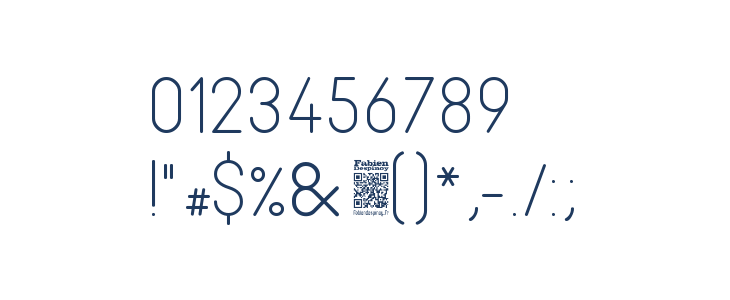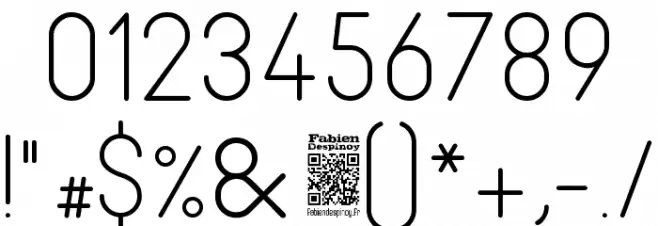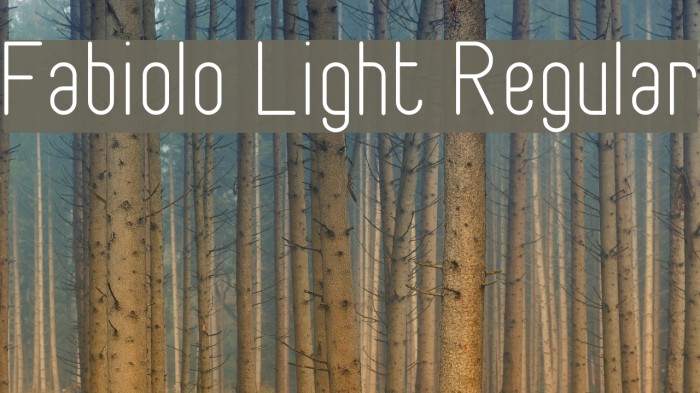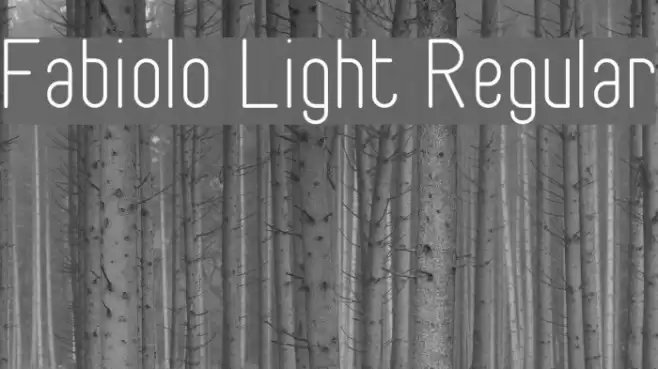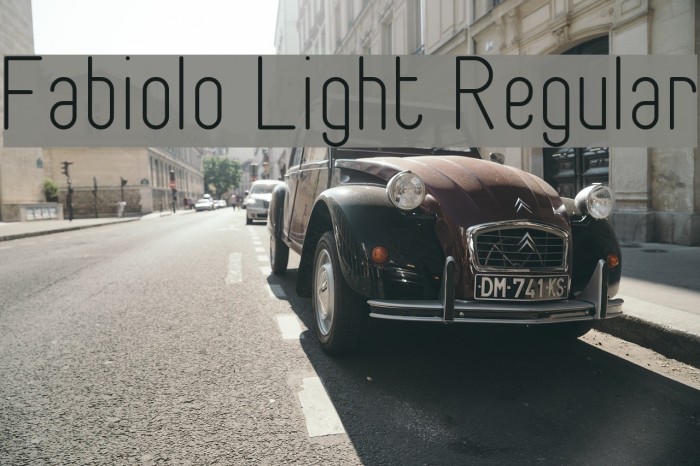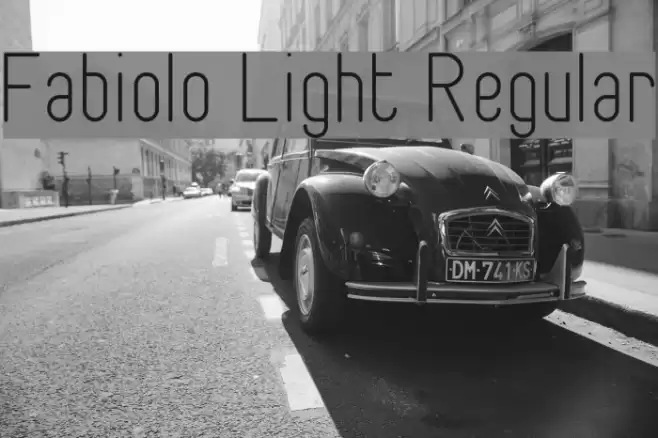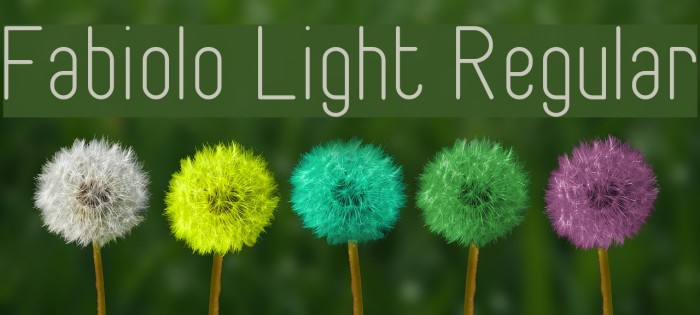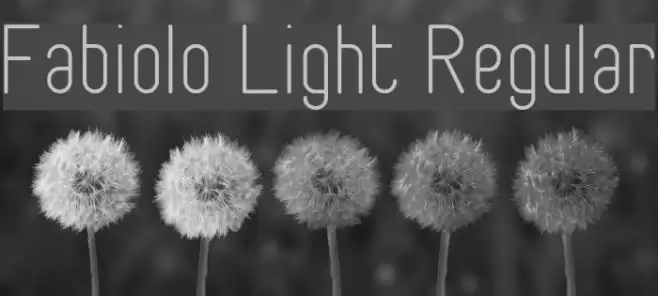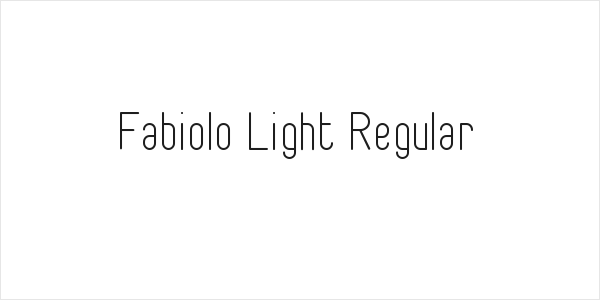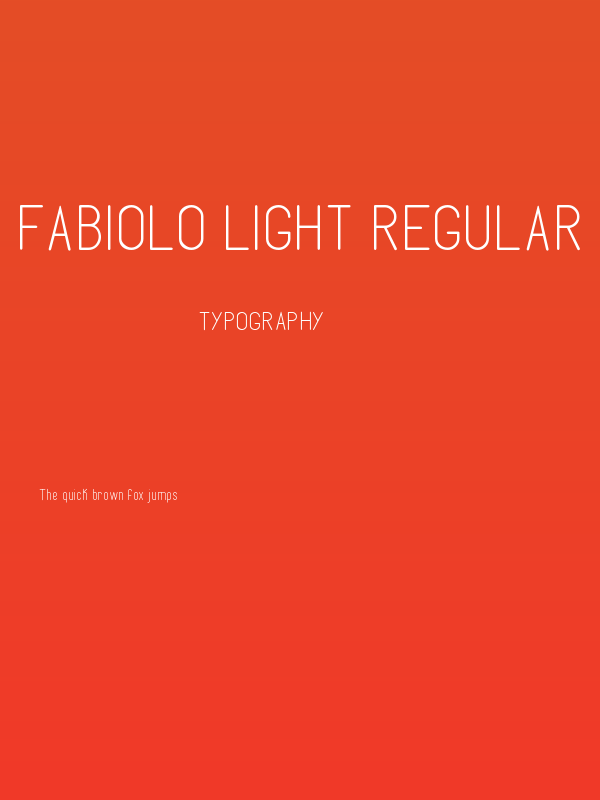
Fabiolo Light Regular Font
Fabiolo Light Regular Description
This font features a clean and modern design with a minimalist aesthetic. The characters are tall and narrow, giving it an elegant and sophisticated appearance. The strokes are consistent in width, contributing to a uniform and harmonious look. The uppercase and lowercase letters maintain a cohesive style, with rounded edges that soften the overall feel. The numerals are clear and easy to read, matching the style of the alphabet. Special characters are included, maintaining the same sleek design. This font is versatile and can be used in various design projects.